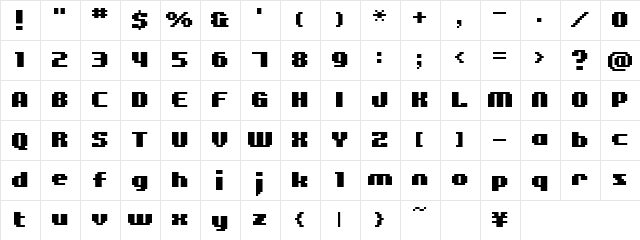
BM figaro A11 Font Preview
BM figaro A11
Design Context for BM figaro Typeface
BM figaro is a composed and adaptable typeface that performs quietly and consistently across a wide range of design contexts.